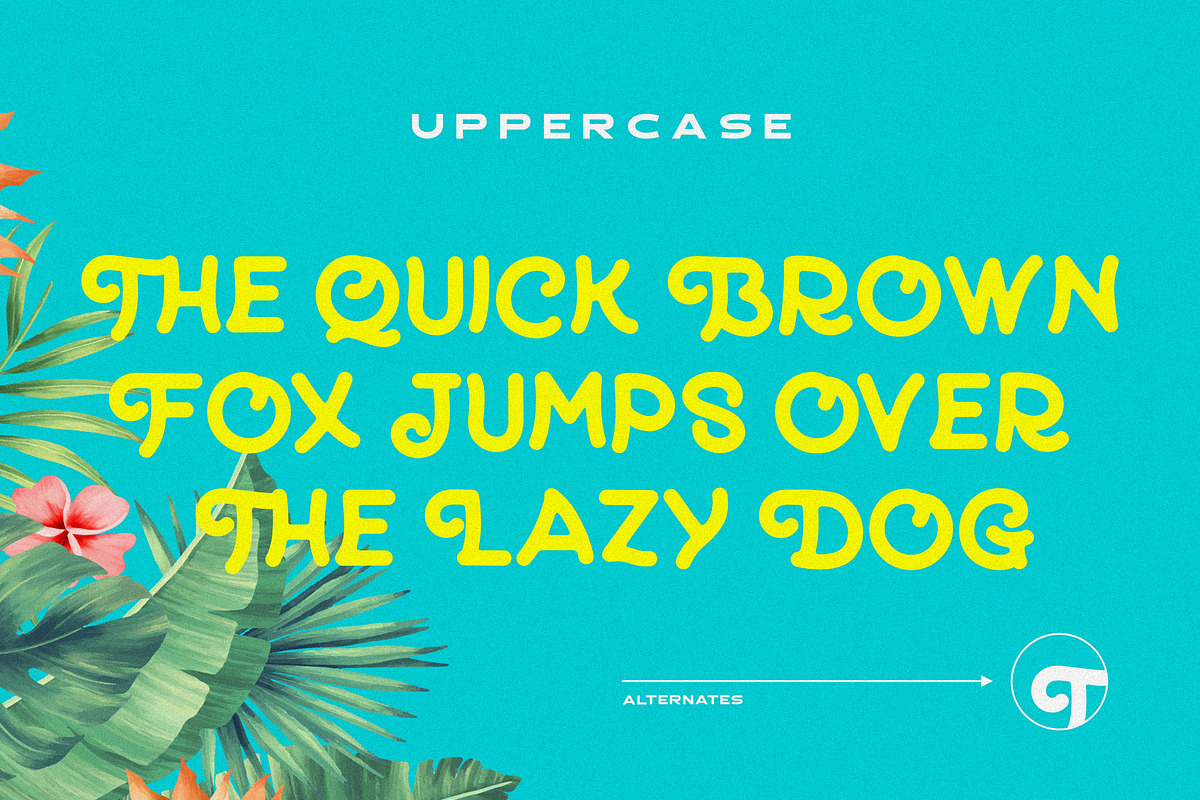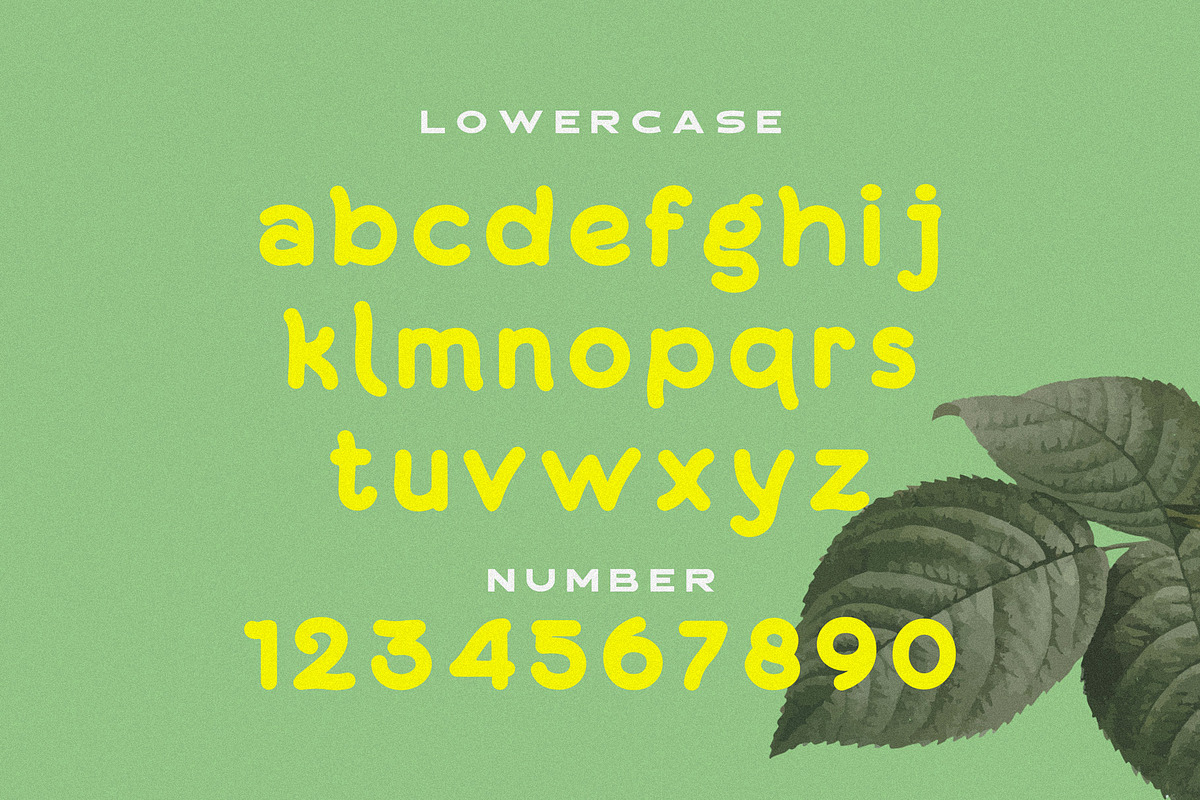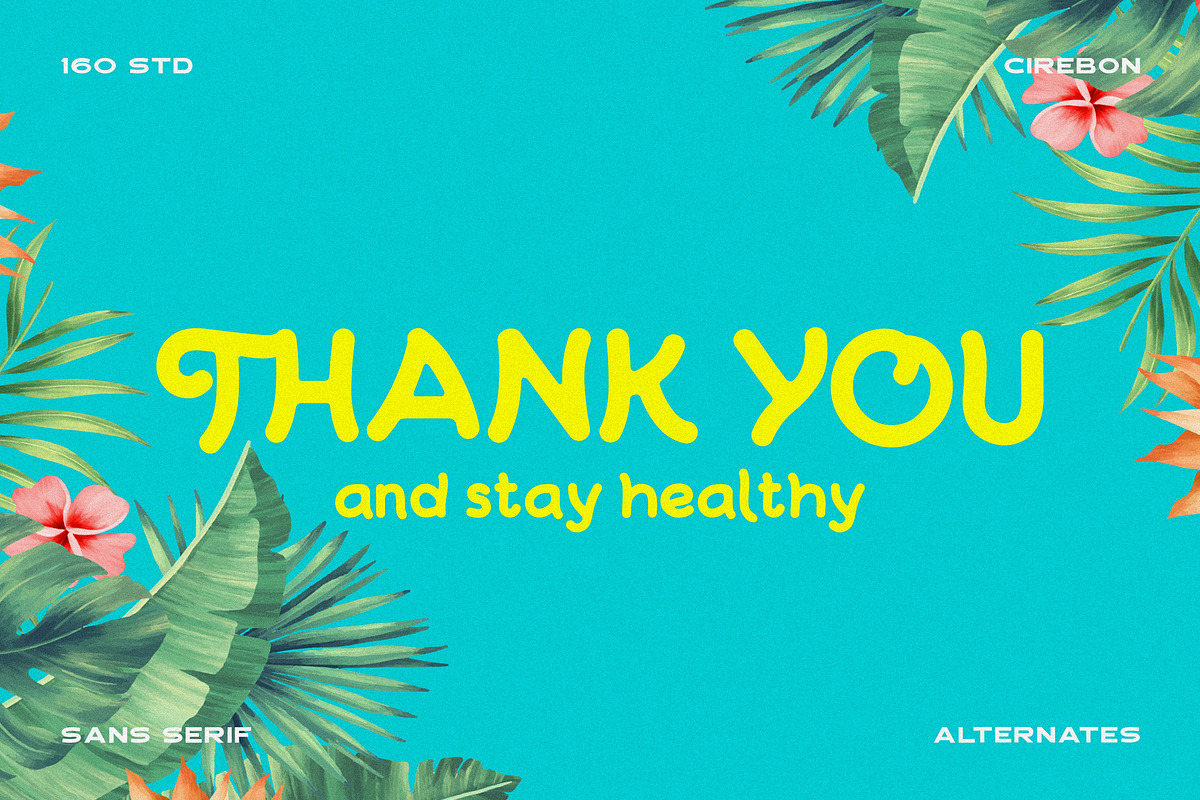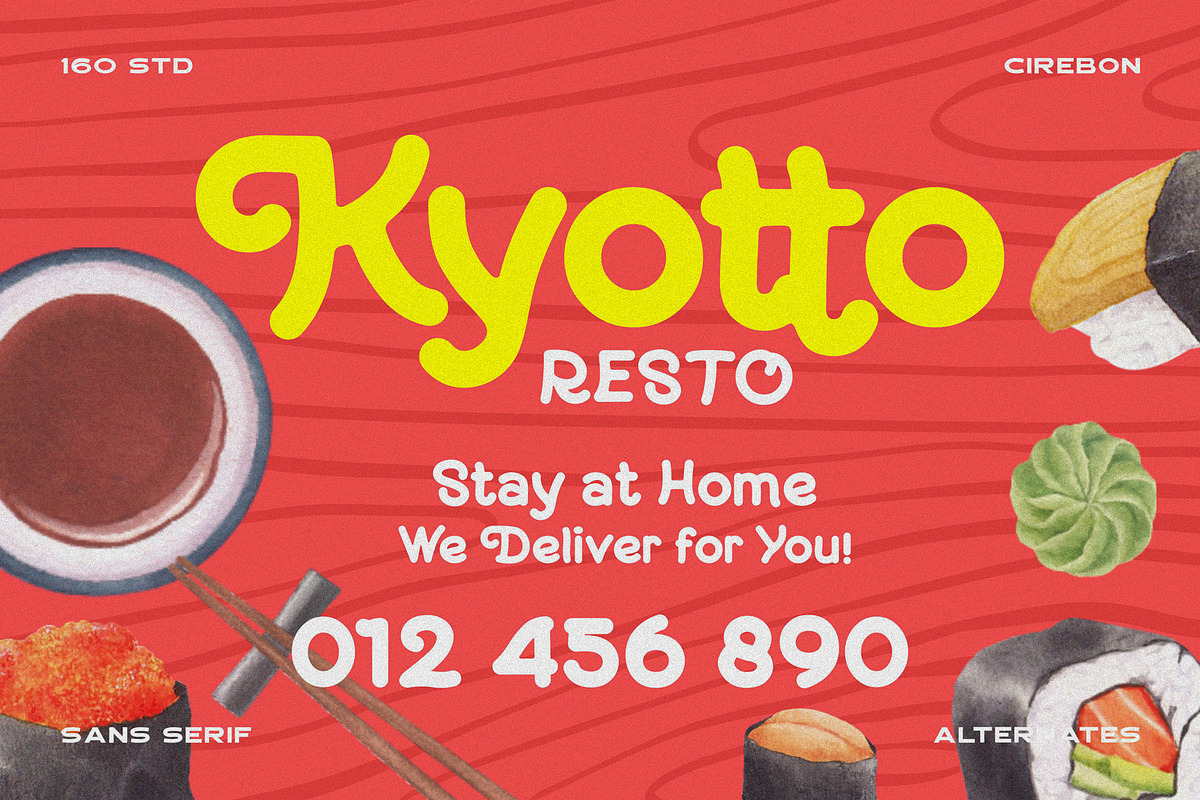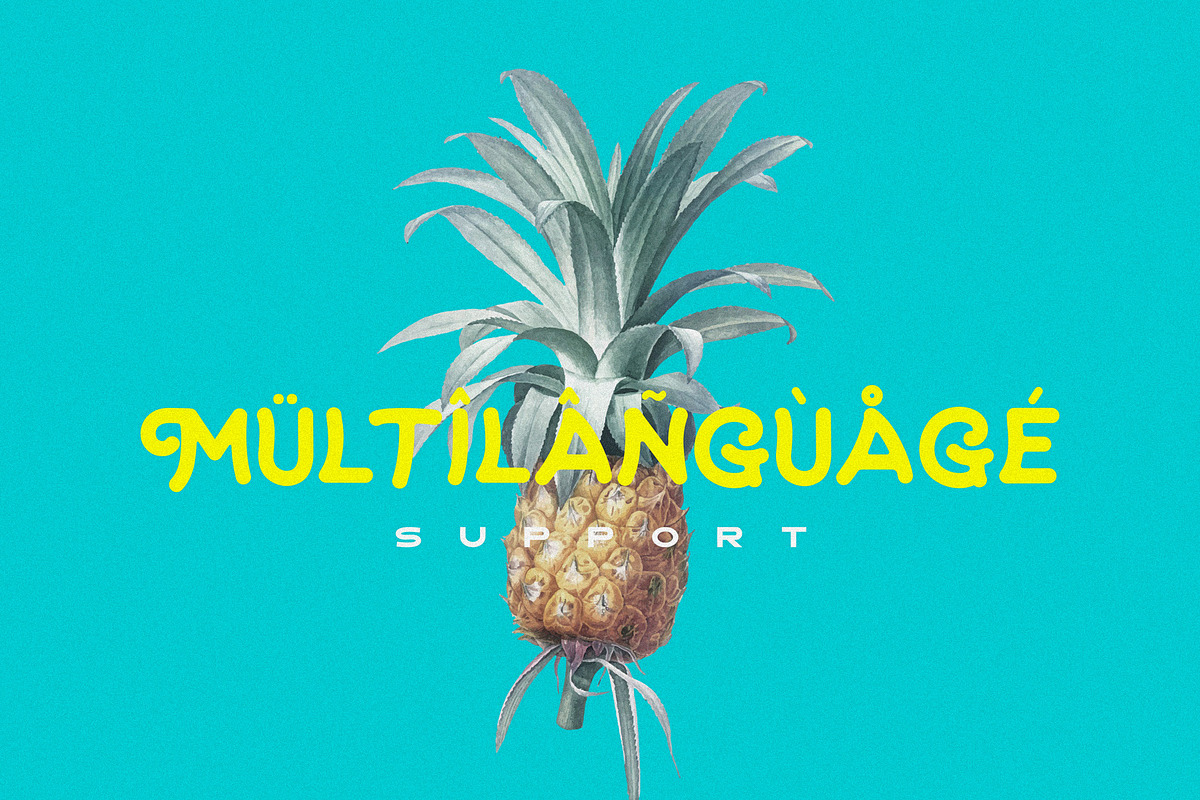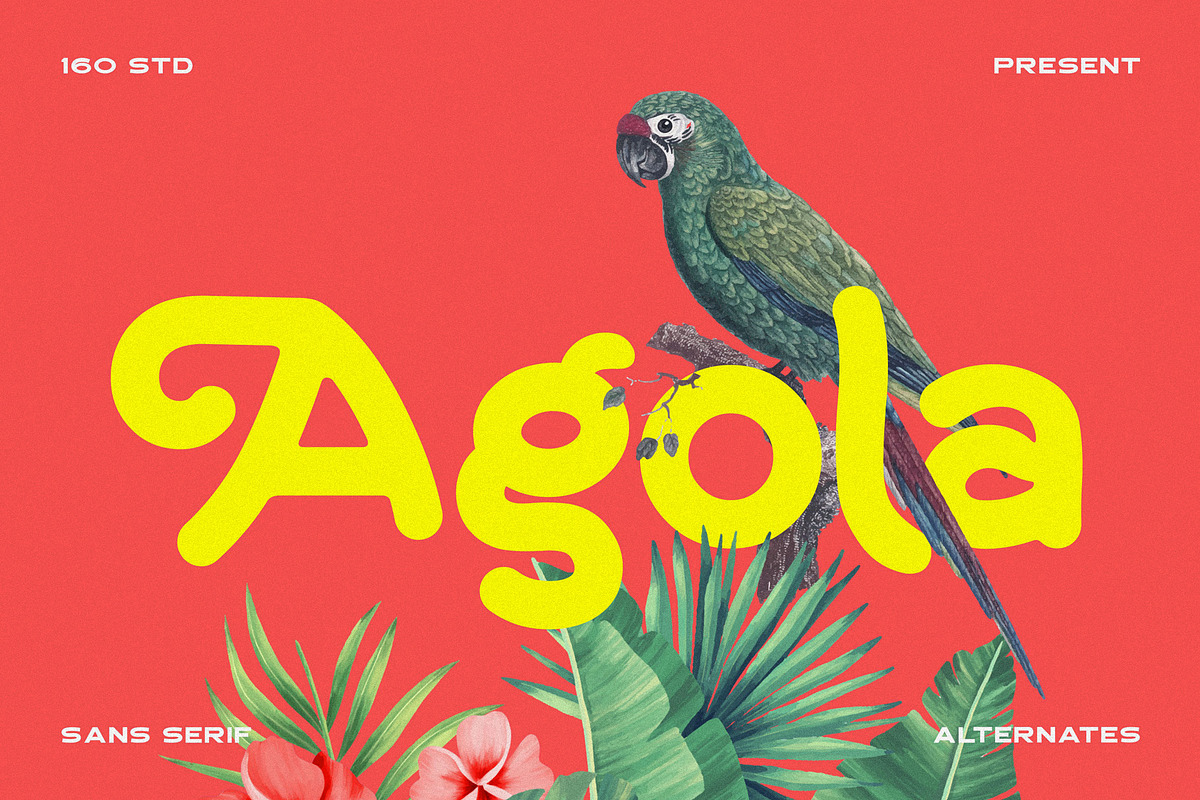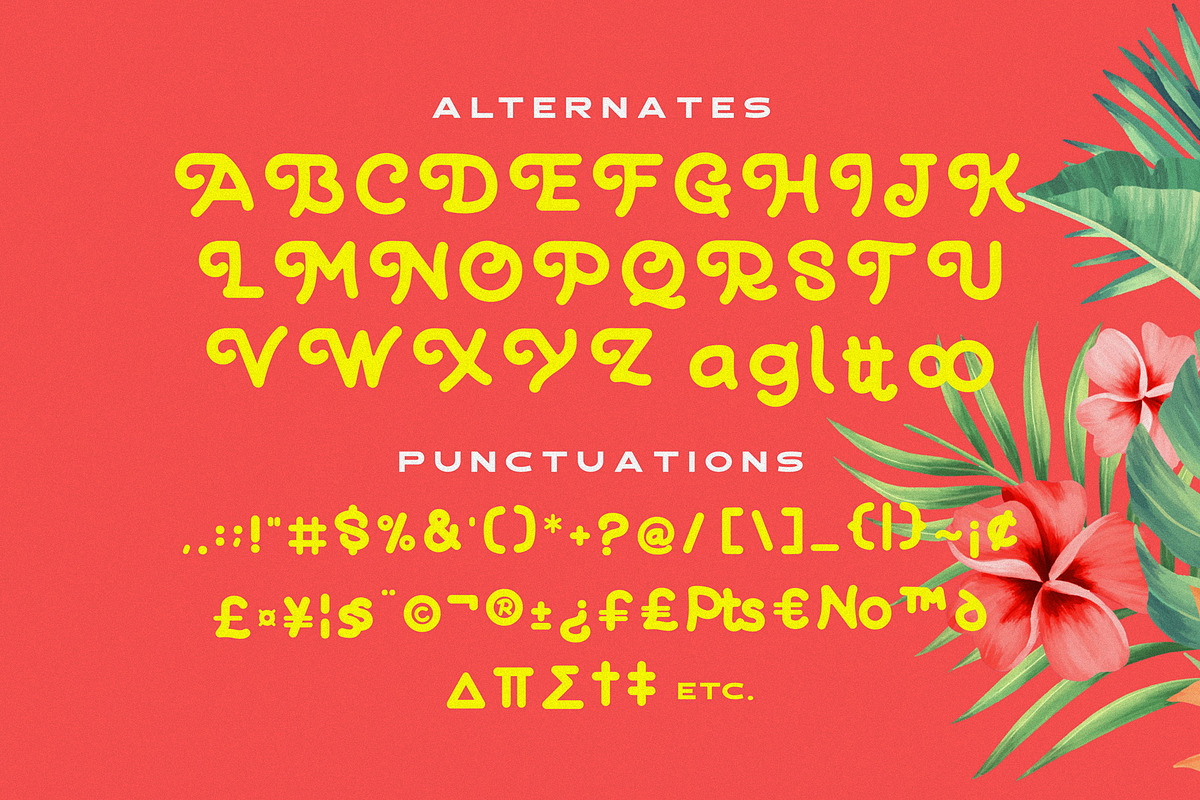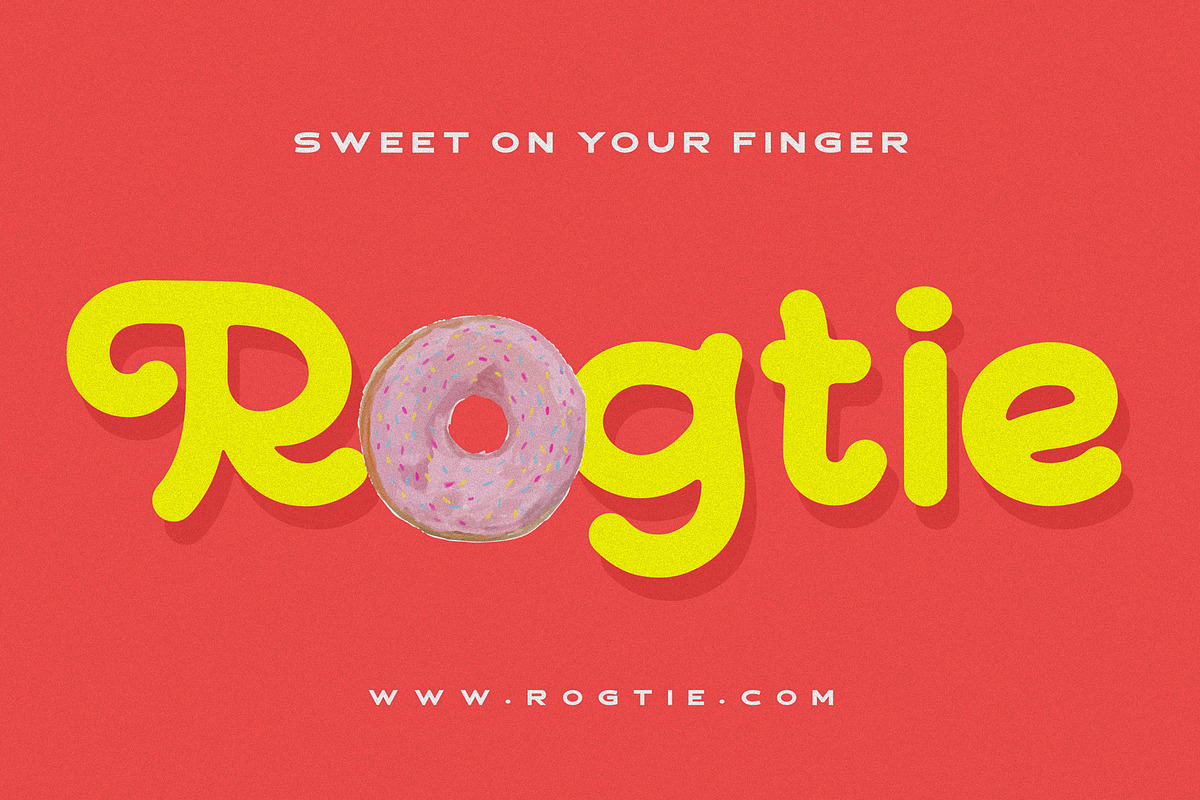
Agola Sans
Agola is a super soft and positive sans font inspired by the summer funny mood, simple street food and fresh drinks. It’s all about smiles, delicious, not too serious time spending with family or friends. You can use this font for example in logo and package design, in food business, kids and confectionery products, a short text even a long text letter and good for your secondary text font with sans or serif. Make a stunning work with Agola font.
Agola support Western European characters and works with following languages: English, Danish, Dutch, Estonian, Faroese, Filipino, Finnish, French, German, Hungarian, Icelandic, Irish, Italian, Norwegian, Polish, Portuguese, Spanish, Swedish, Turkish.